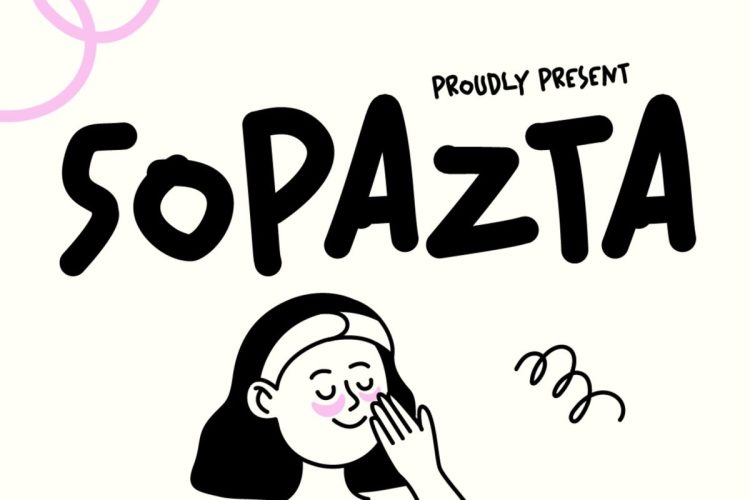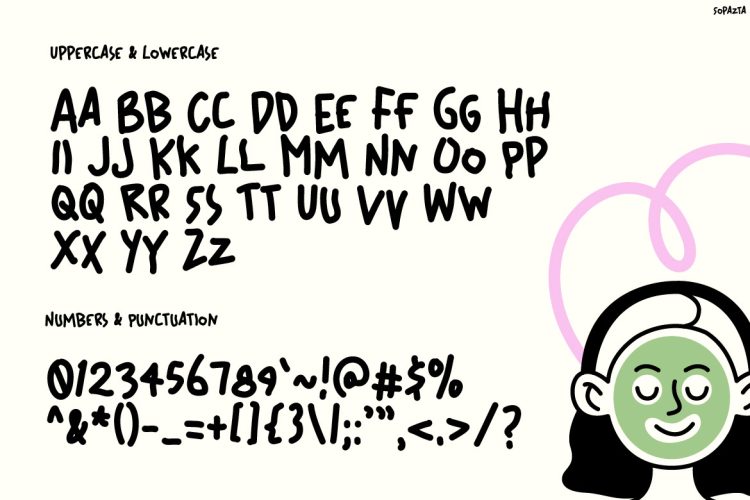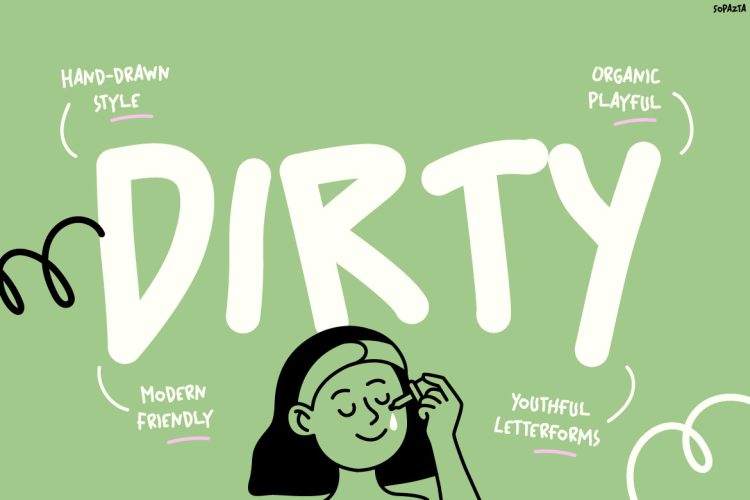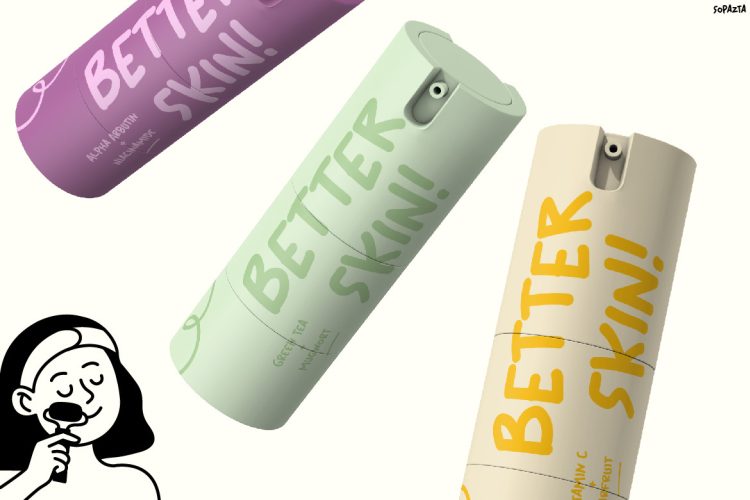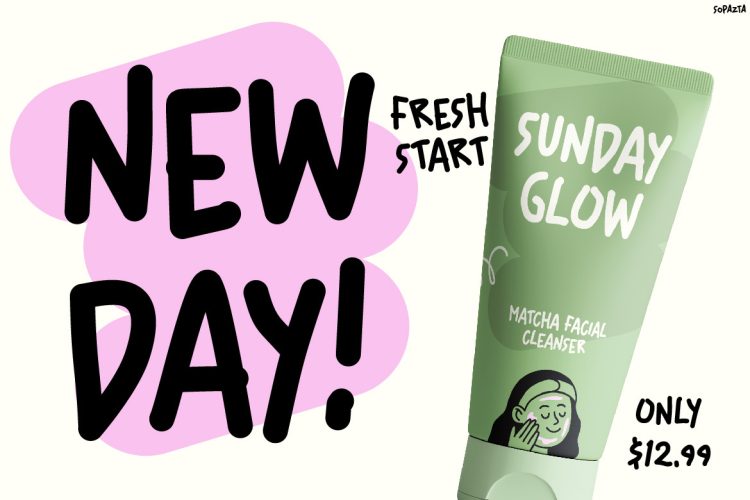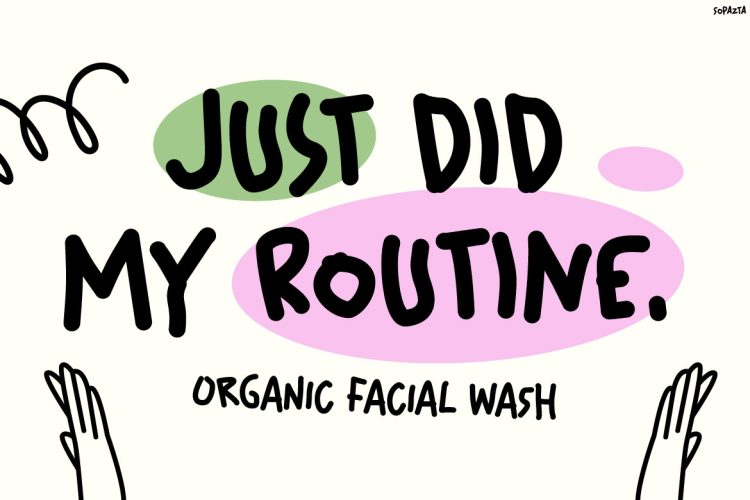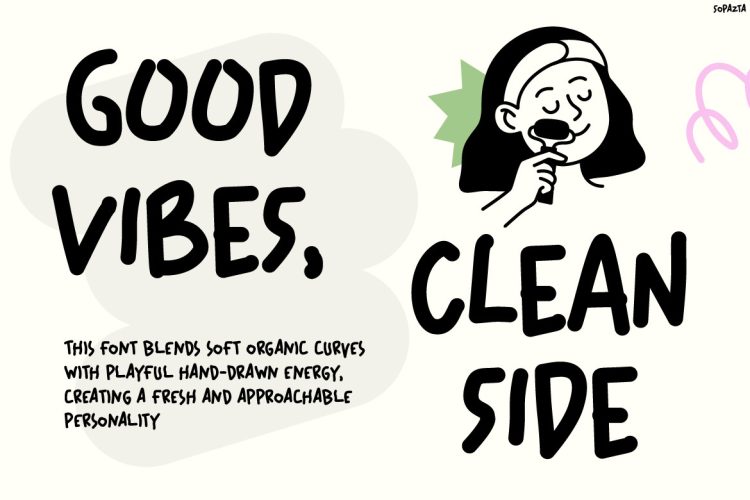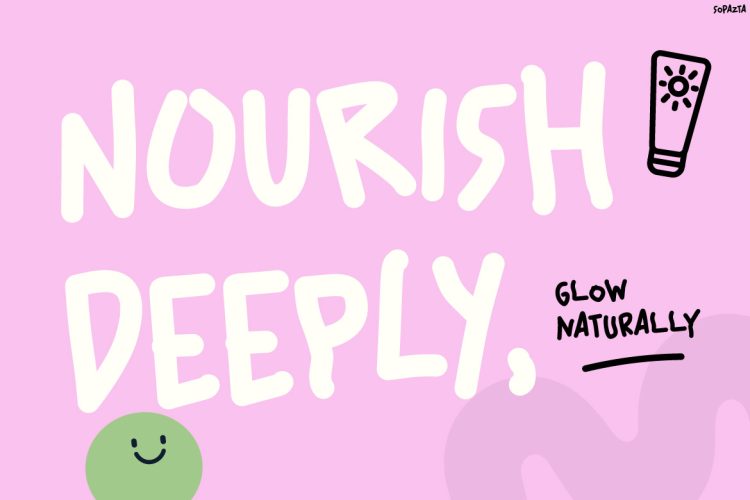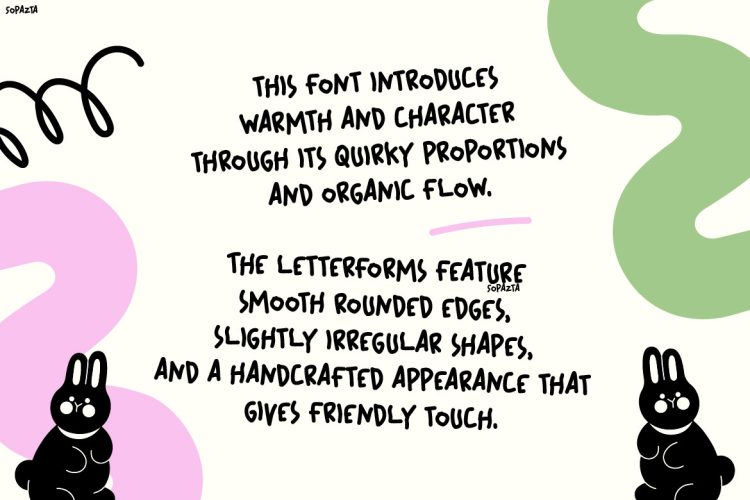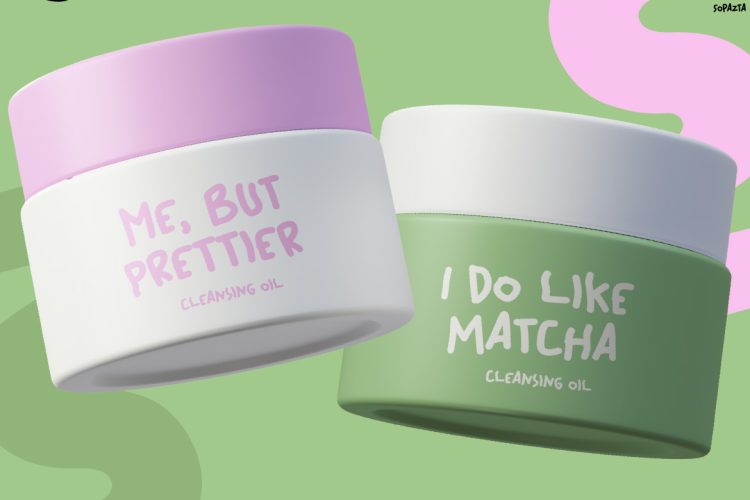
Instagram Font Sopazta โ Fresh, Playful & Feel-Good Typography for Beauty Brands
Instagram Font Sopazta is a playful handwritten display font designed to bring warmth, personality, and charm to modern skincare and beauty branding. Not only does it feature organic hand-drawn letterforms, but it also delivers a friendly and approachable aesthetic that instantly feels authentic. Moreover, its soft curves and imperfect strokes create a natural handmade appearance. In addition, the font captures the clean, fresh, and uplifting vibe often found in beauty, wellness, and self-care brands. Furthermore, its bold character shapes ensure excellent visibility across packaging and social media content. As a result, every design feels more engaging and memorable. Meanwhile, its casual handwritten style helps brands build a stronger emotional connection with their audience. Additionally, Sopazta balances playful creativity with professional appeal. Therefore, it is an ideal choice for brands that want to appear modern, friendly, and trustworthy.
Instagram Font Perfect For
Sopazta is crafted for projects that focus on beauty, skincare, wellness, and lifestyle branding. Whether you’re designing skincare packaging, cosmetic labels, beauty campaigns, social media graphics, product launches, promotional posters, or e-commerce visuals, this font helps your message stand out. Likewise, its handwritten personality adds warmth and authenticity. Furthermore, its playful structure makes every headline feel more inviting. Consequently, your products can create a stronger first impression. At the same time, its clean readability keeps important information clear and effective.
Who Can Use It?
- Skincare Brands
- Beauty Product Businesses
- Cosmetic Startups
- Wellness Brands
- Organic Product Companies
- Social Media Creators
- Packaging Designers
- Content Marketers
- Creative Agencies